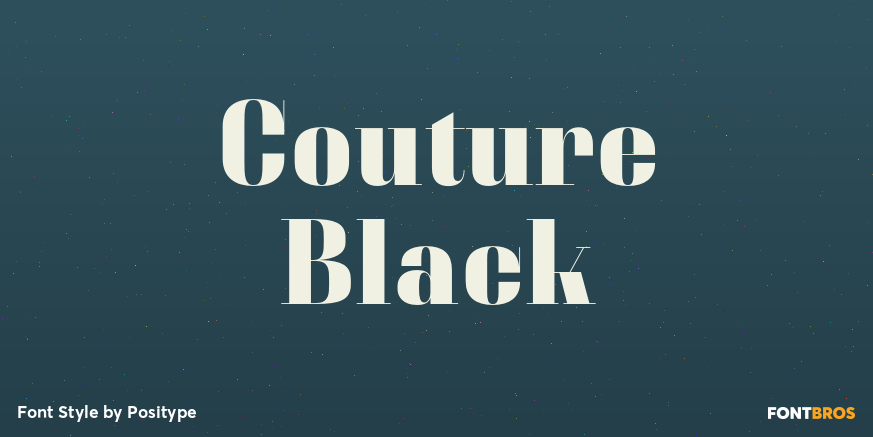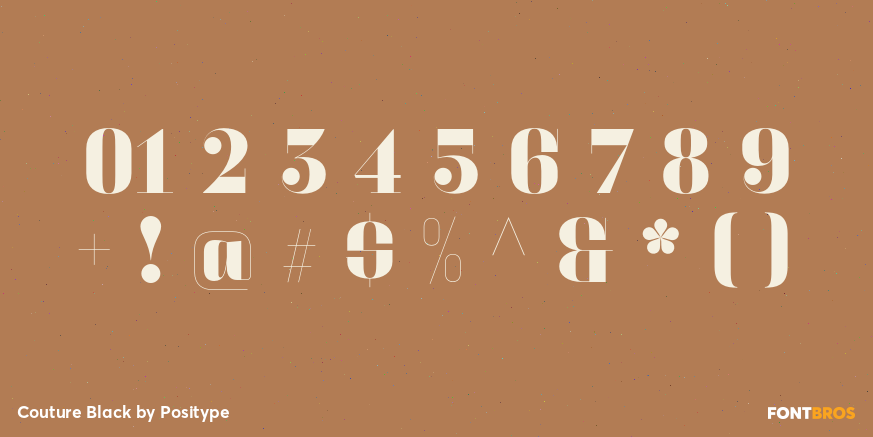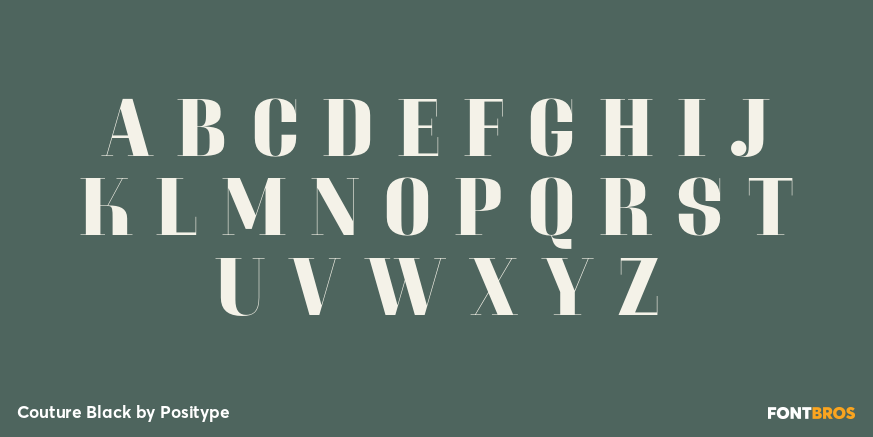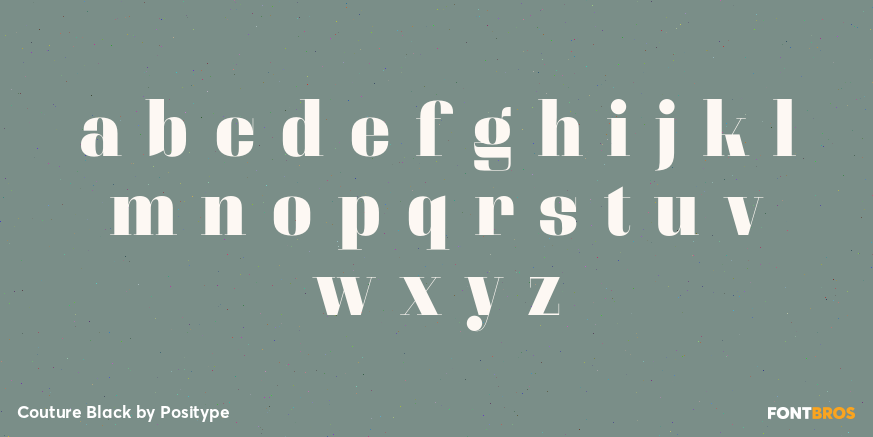
Couture Black Font by Positype
Couture has taken years to come to fruition. We cannot say it is a dutiful revival of Imre Reiner’s Corvinus—a typeface that has always had a soft spot in many of our hearts for its quirkiness and eccentricities. It’s not. What it is is a reassessment of all of the things that made Corvinus great, distilled in a logical, consistent system.
From this system sprang two wonderfully delicate pursuits: Couture and Couture Sans.
Long forgotten is the obliqued cursiv and in its place, a new italic has been introduced—carrying with it its own set of quirks and beauty. There’s a hint of the past, a subtle homage to the canon of early modern and Art Deco type, but it does not remained bound to it for long. Each typeface… long, slender, curvy… as if pulled from the pages of a fashion magazine, brings with it a whole new level of sass and style.